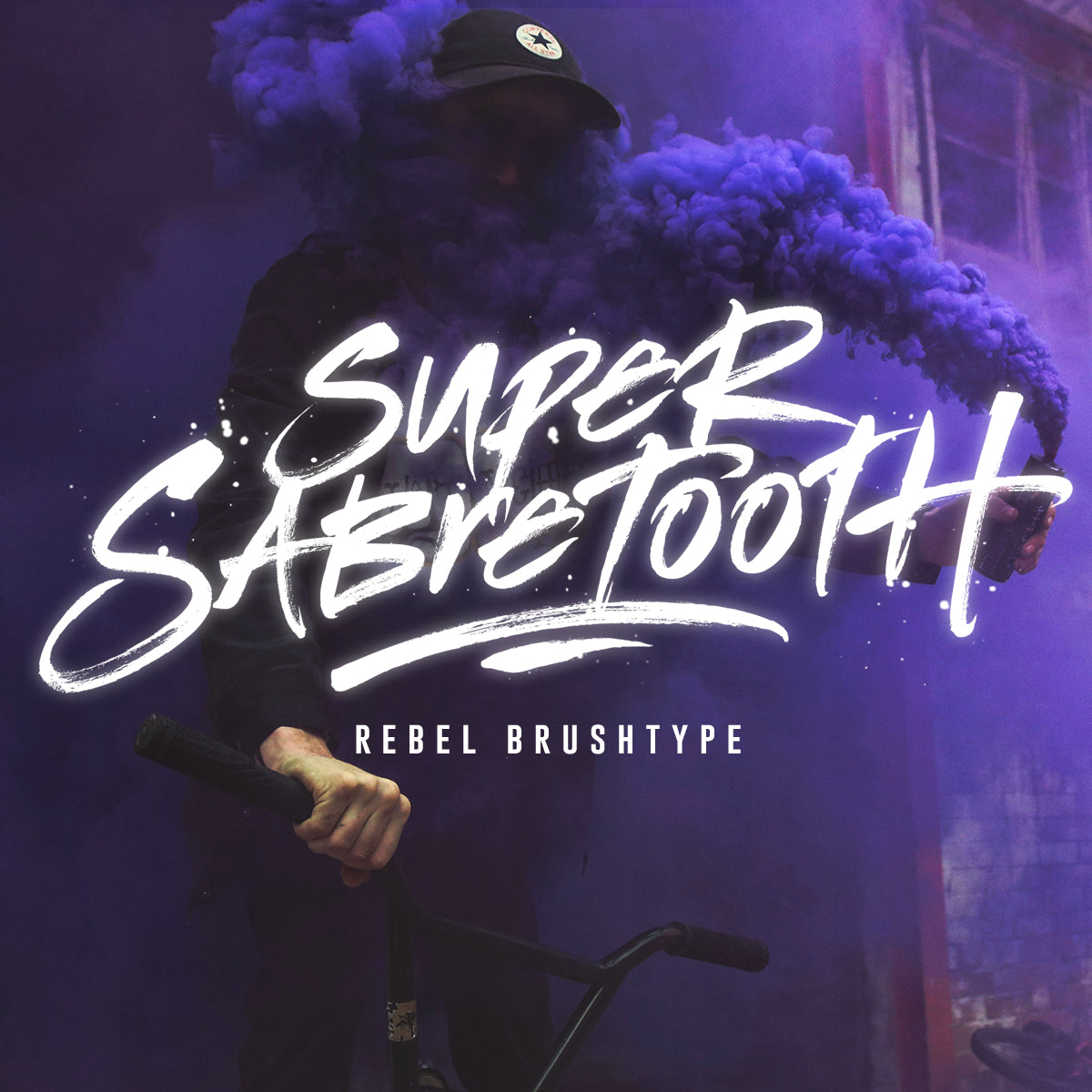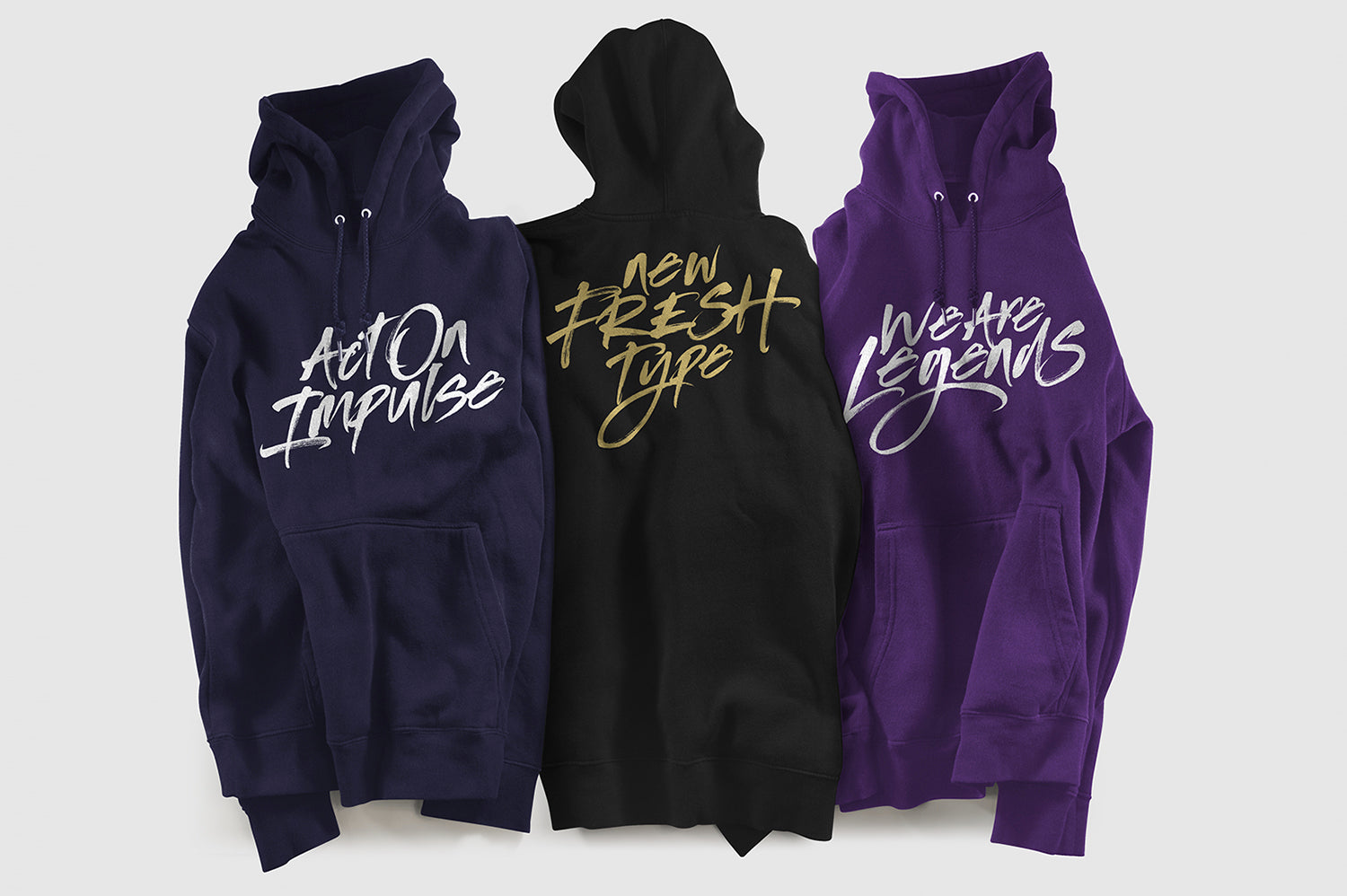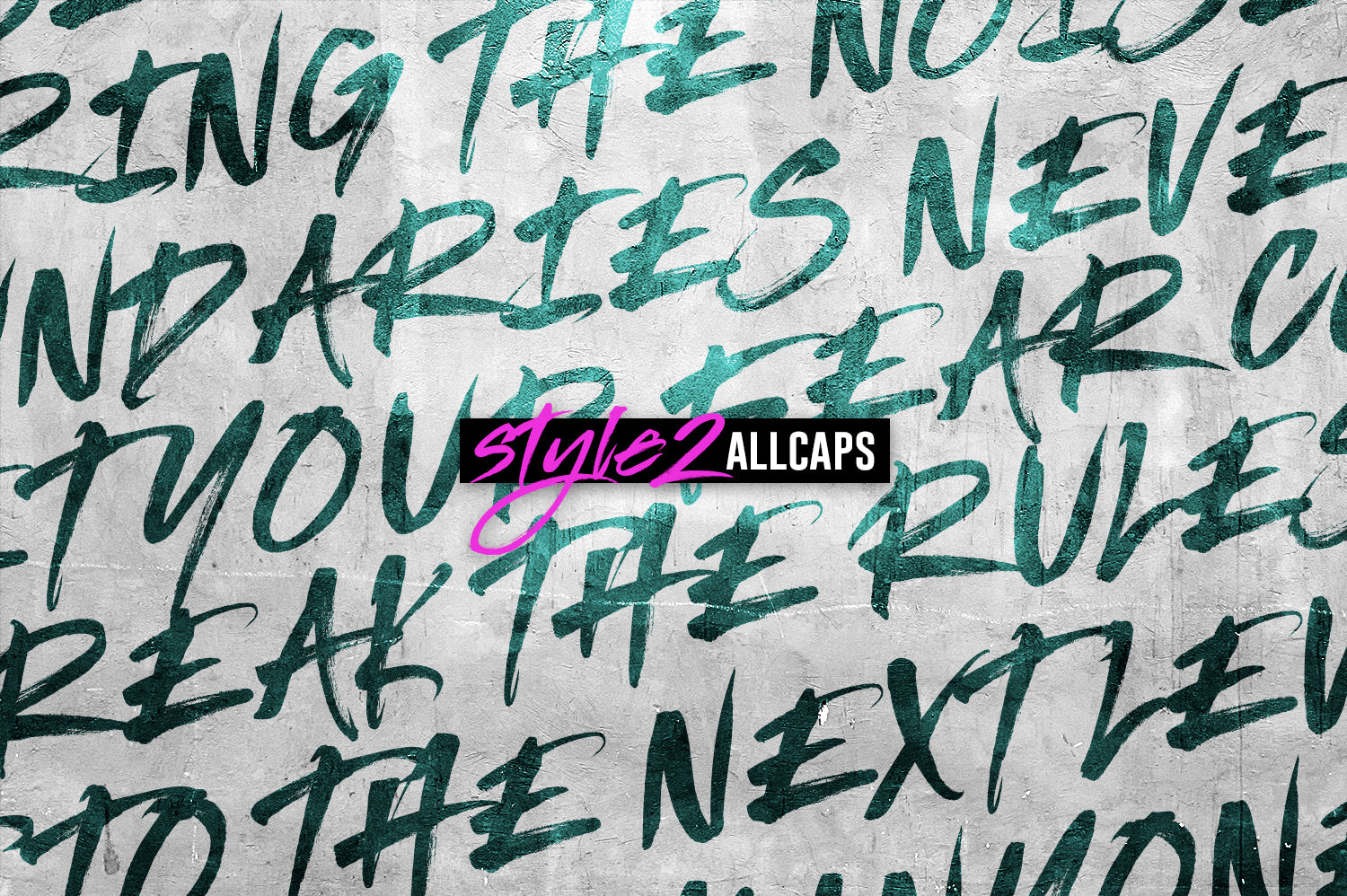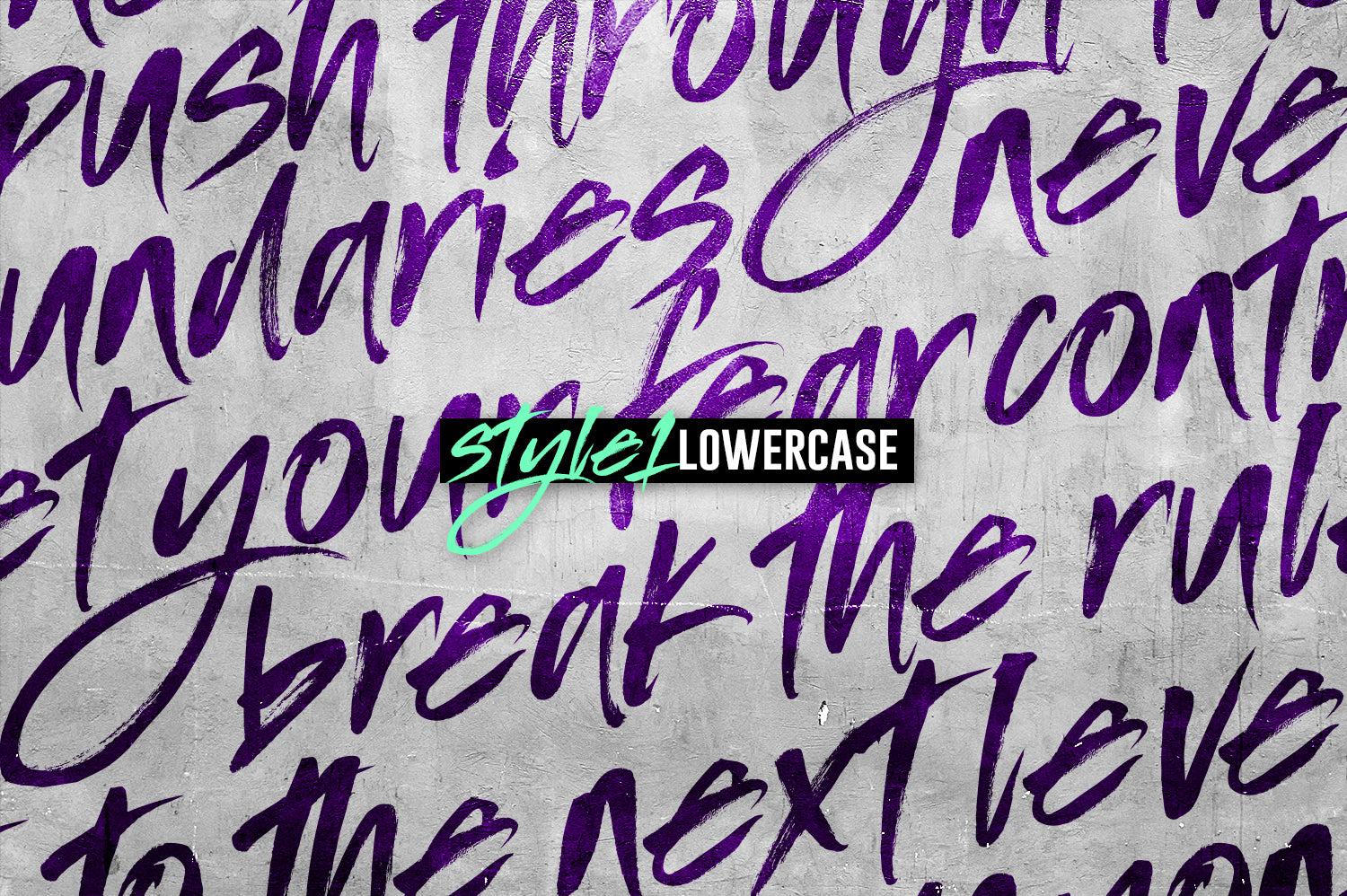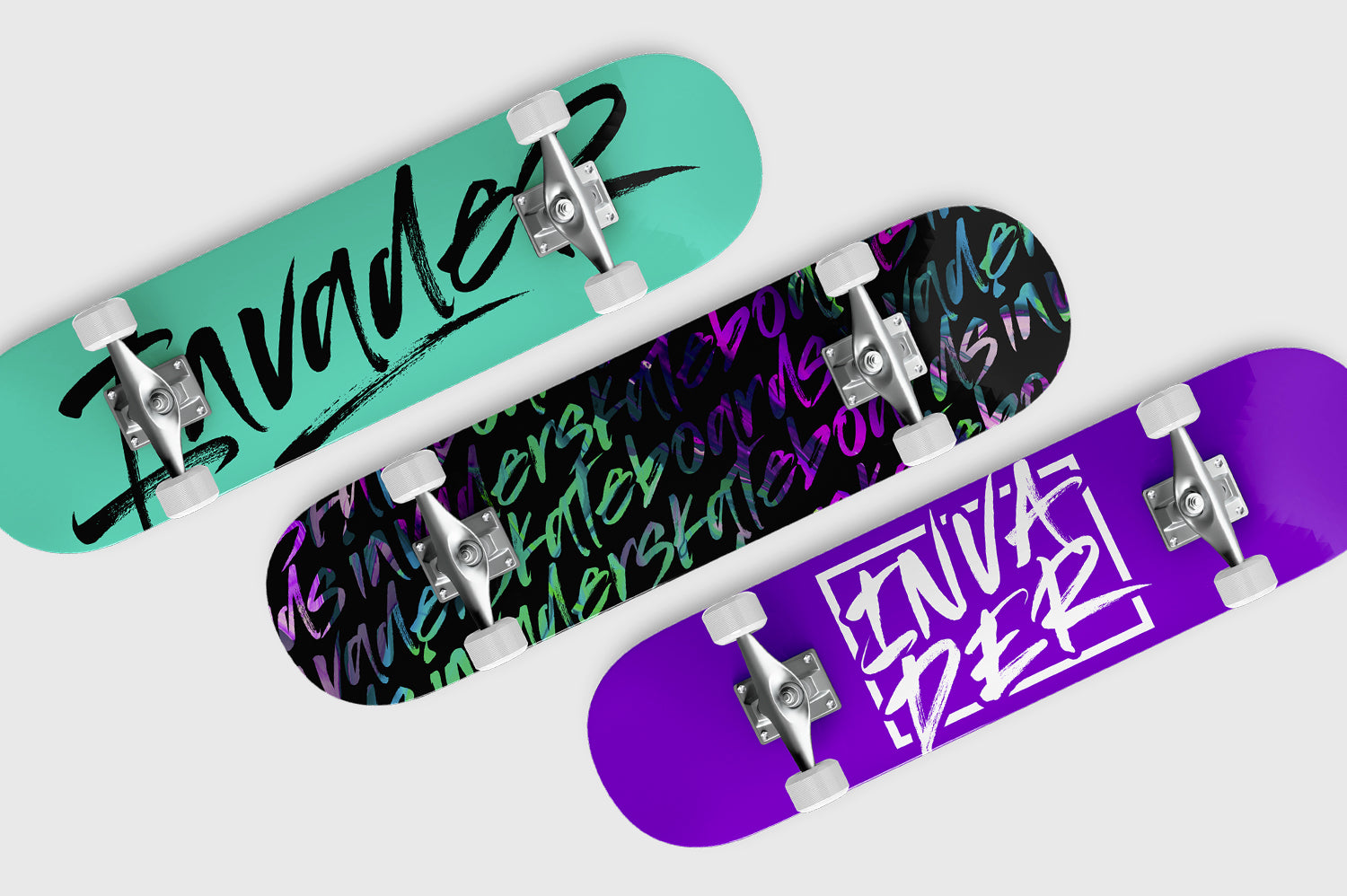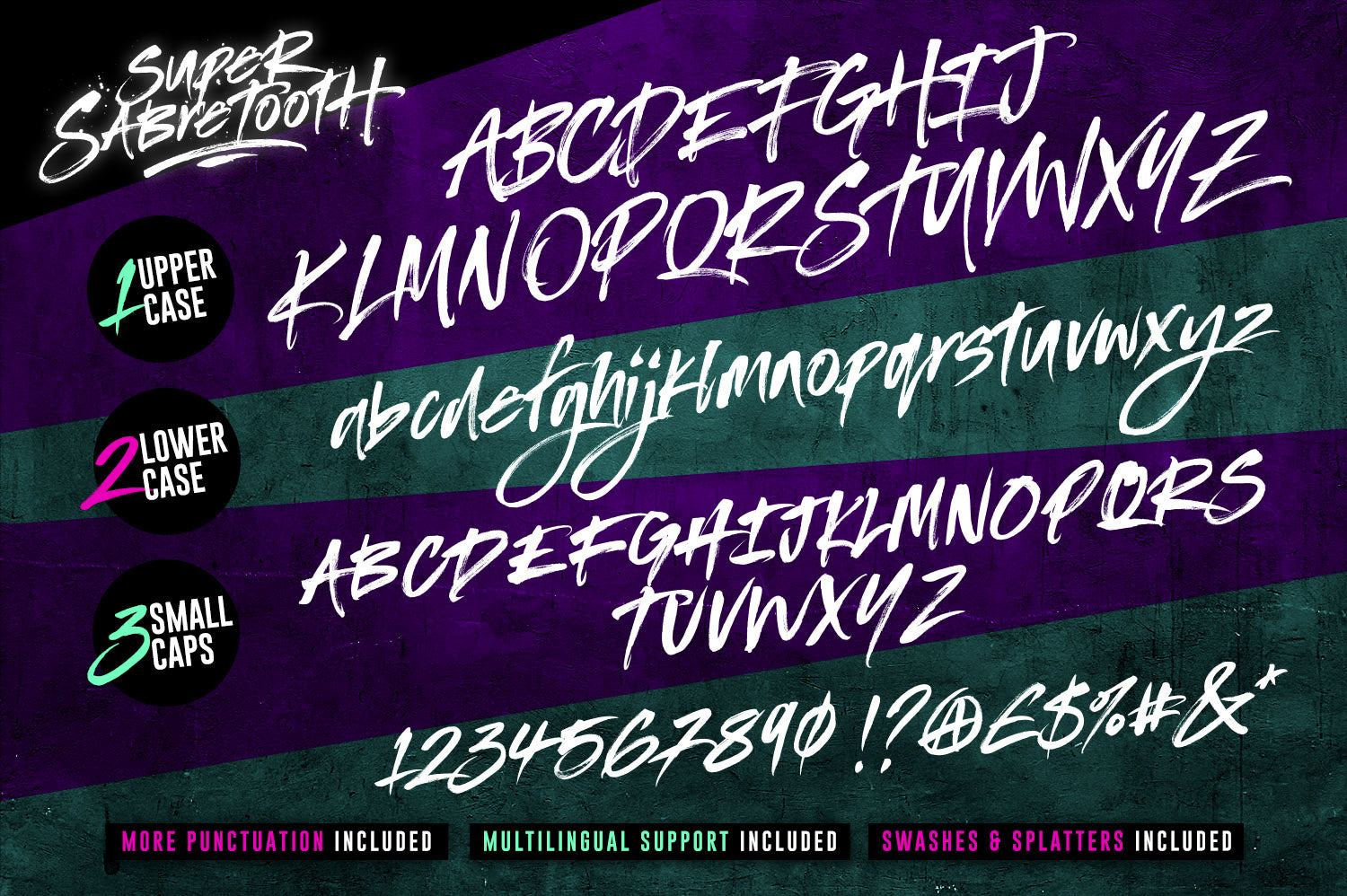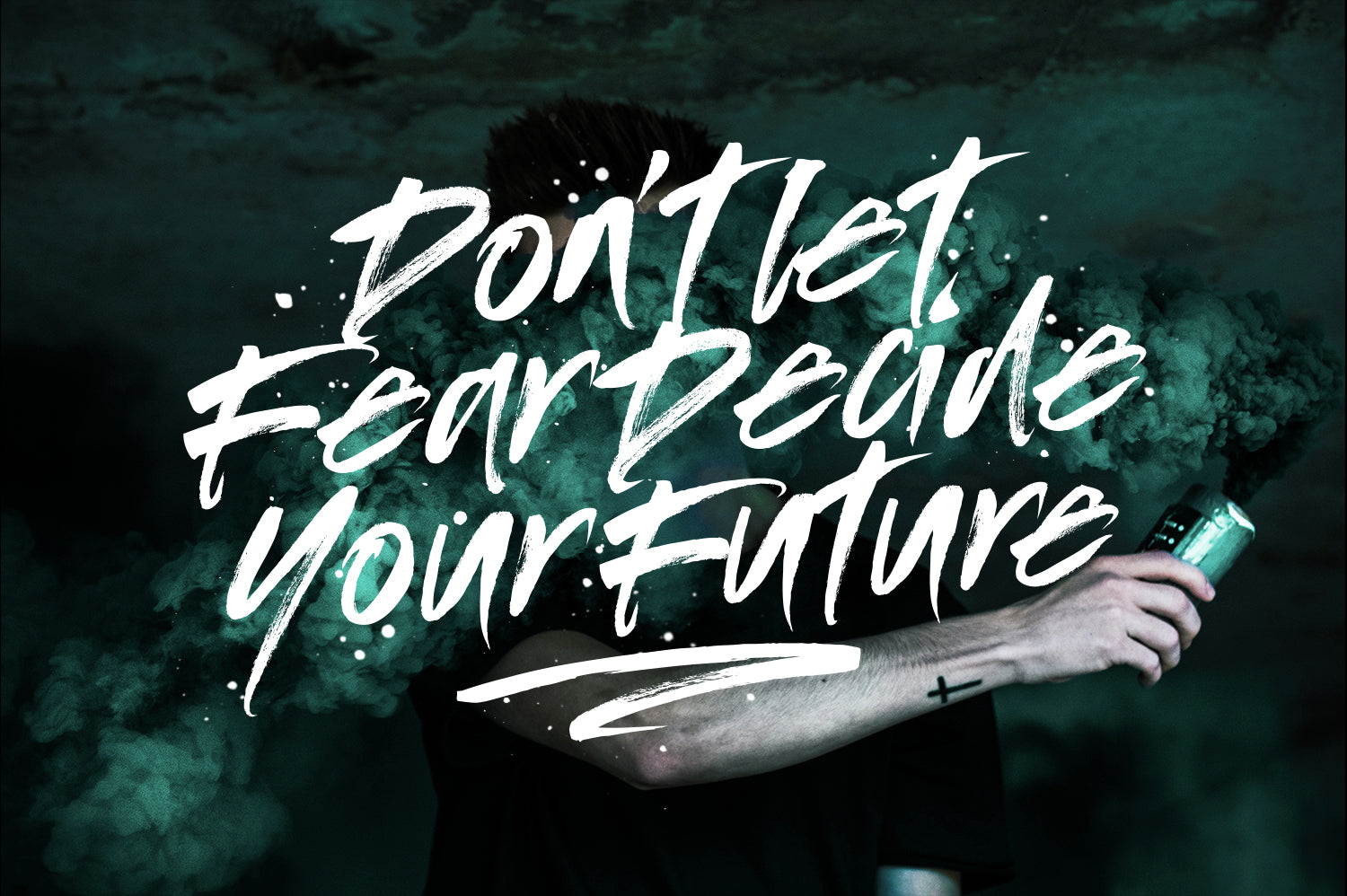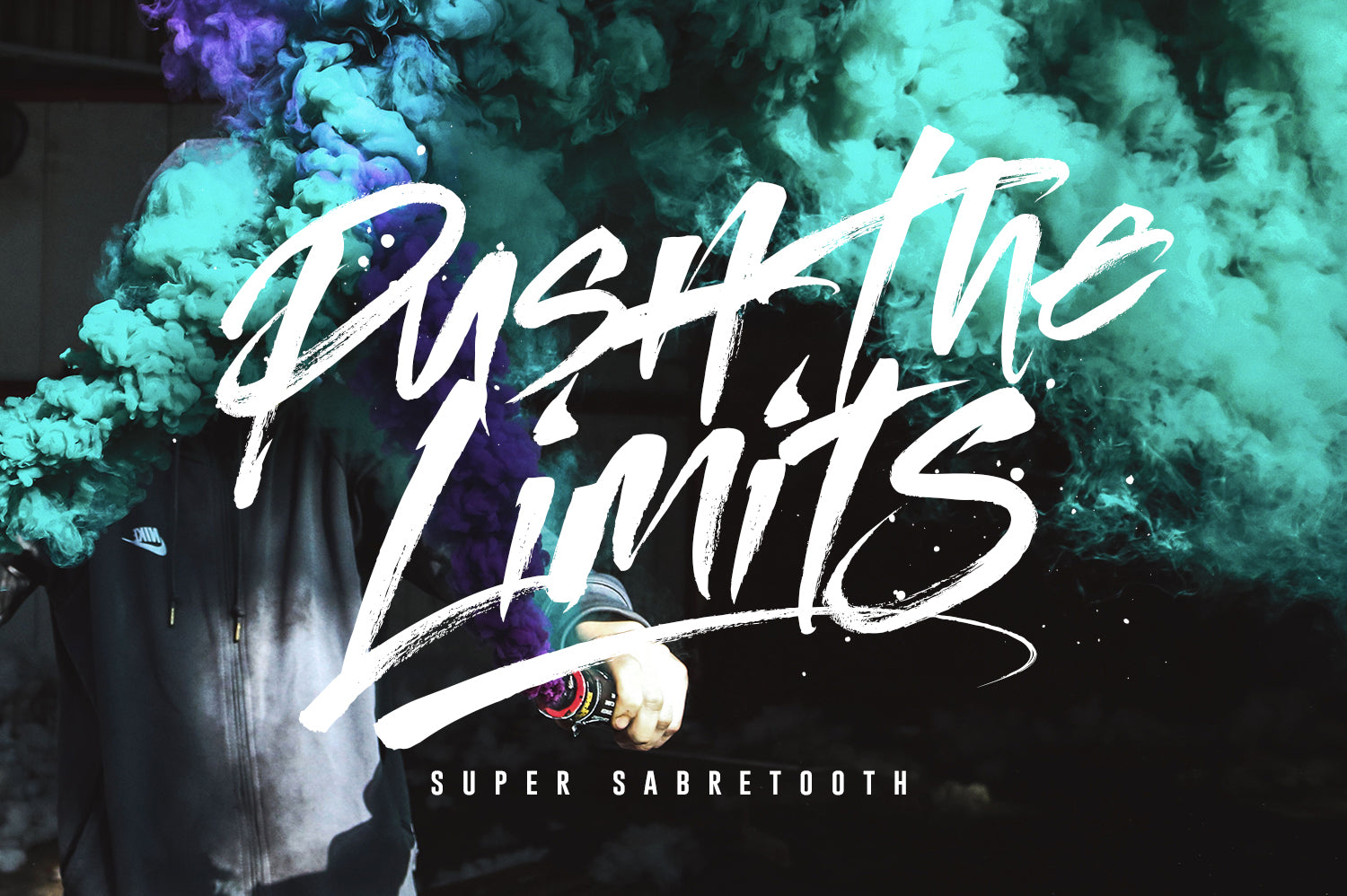
Super Sabretooth Brush Font
The Super Sabretooth Brush Font is a high-energy typography tool that includes three font files: the main Super Sabretooth font with upper and lowercase characters, the Super Sabretooth All Caps font featuring small-caps, and Super Sabretooth Extras, which provides 17 swashes and 9 paint splatters for added design elements. This font set is designed for creating dynamic and expressive typography.